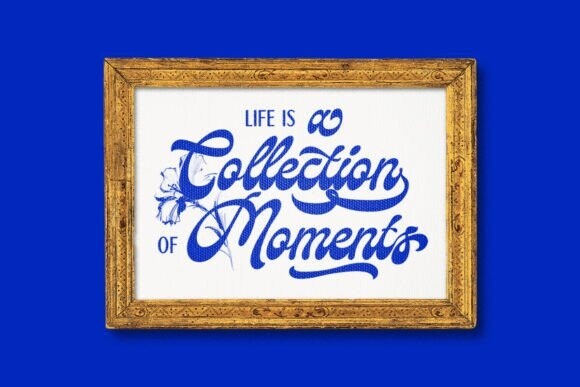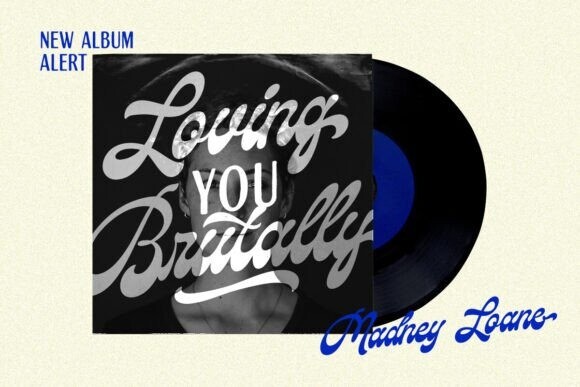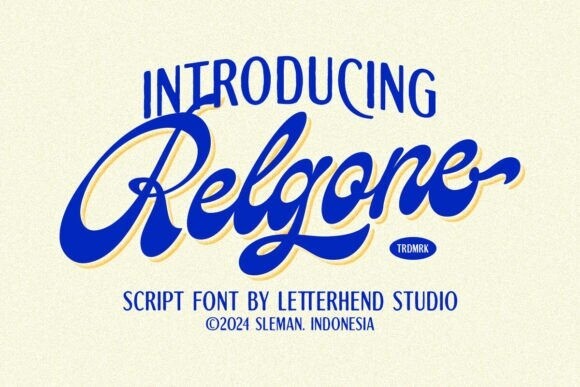
Relgone Font
Designer: letterhend
Relgone Font is a magical script font carefully created with a touch of elegance. Whether you’re looking for fonts for Instagram or calligraphy scripts for DIY projects, this font will turn any creative idea into a true piece of art!